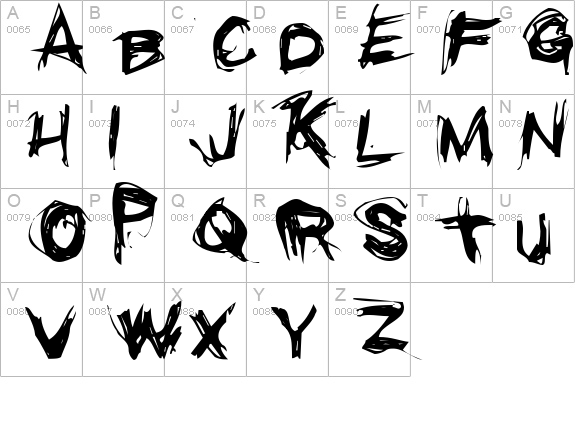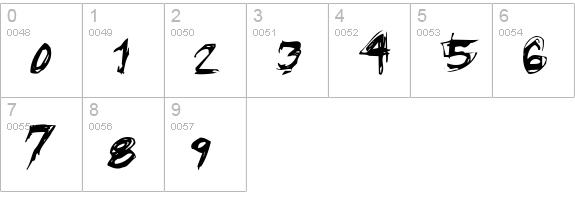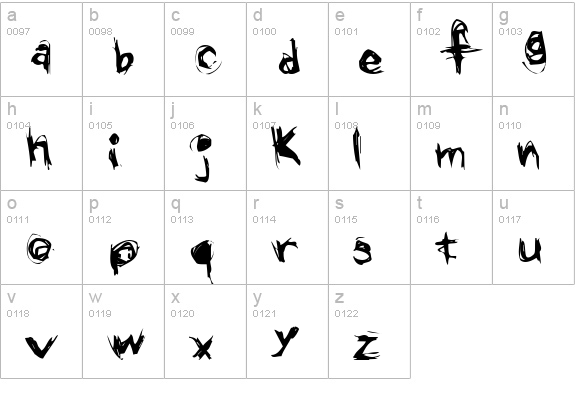
Grunge Font Details
The Grunge font exudes a raw and edgy aesthetic, perfect for adding a touch of urban flair to your designs. Its distressed and rugged appearance gives off a rebellious and non-conformist vibe, making it ideal for projects that require a bold and gritty look. The uneven lines and worn-out feel of the characters add depth and character to any text, making it stand out from the crowd. Best of all, the Grunge font is available for free download at FontsMarket.com. This means you can easily incorporate this unique typeface into your projects without breaking the bank. Whether you're working on posters, album covers, or website graphics, the Grunge font is sure to make a statement and leave a lasting impression on your audience. Download it today and unleash your creativity with this versatile and impactful font.